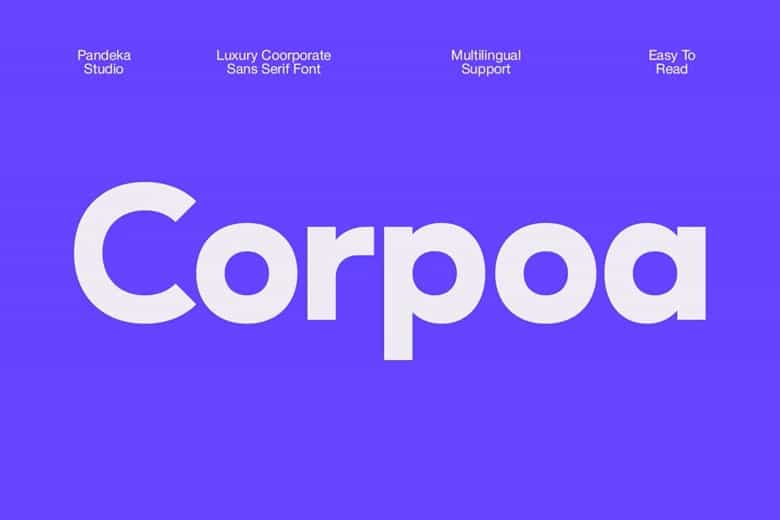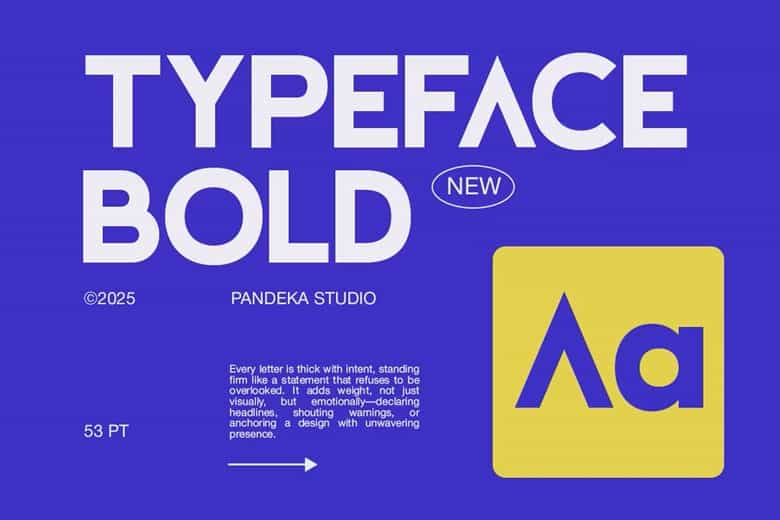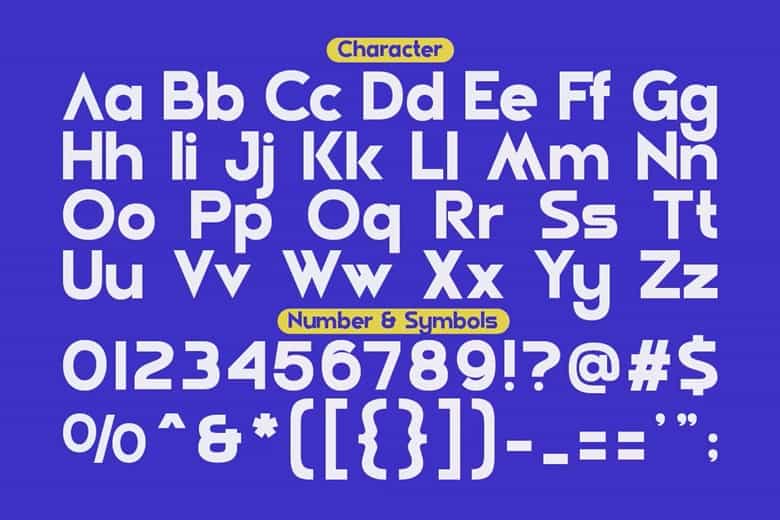
Corpoa is a modern rounded sans serif typeface that combines the bold nature with friendly and approachable voice. The geometric form and uses of soft terminals make it adjustable in appearance to both the print and digital environment. Corpoa provides a flashy transparency between readability and character making it fit perfectly in branding, editorial typography, posters, marketing and start-up, or corporate identity.